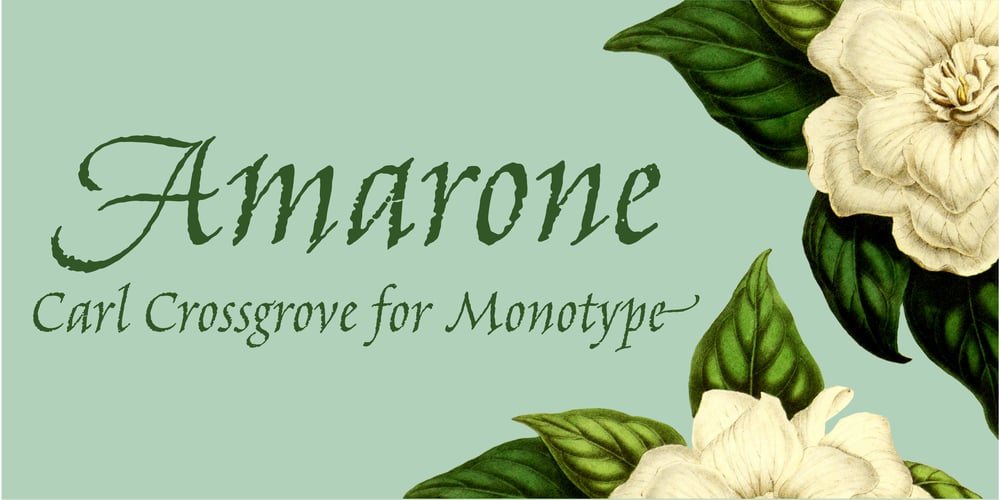
Amarone Font Family was designed by Carl Crossgrove and published by Monotype. Amarone contains 1 styles and family package options. Amarone is a spiky calligraphic display typeface with some old fashioned flavour. It was designed by Carl Crossgrove, and includes an extensive set of swash caps which allow for extra drama where needed. Crossgrove wrote each of Amarone’s letters by hand using pen and rough paper, and has retained some of this visual texture in the final digital design. The typeface works well at small sizes, but when used at larger sizes this texture comes to the fore. Amarone’s elegant, formal character can be modified with its swash caps, which allow the typeface to move from prim and ordered to wildly expressive. Amarone lends itself well to packaging, posters and editorial usage – or in any environment where designers need to evoke times gone by. The Amarone font features an extensive character set with support for over 130 languages, and a range of OpenType typographic features including ligatures, initial and terminal forms, figures, fractions and swashes.